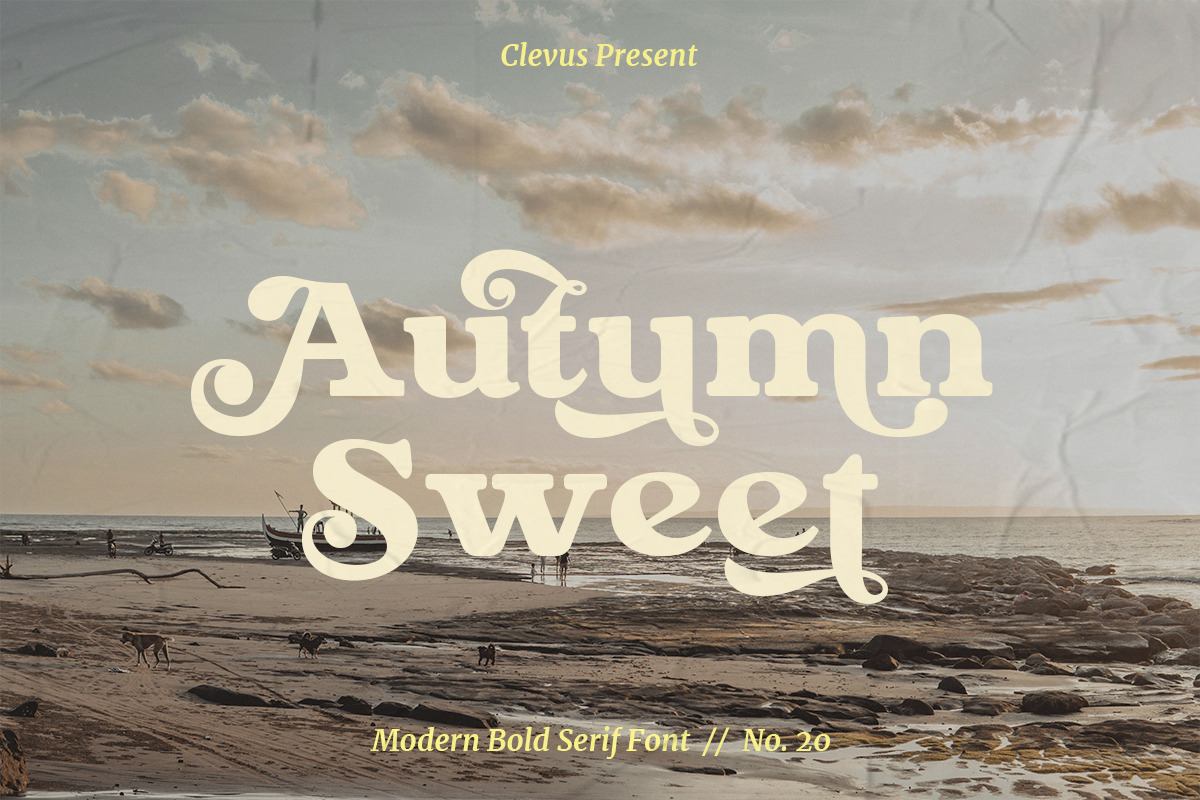
Autumn Sweet | Modern Bold Serif Font Free Download is a warm and stylish typeface that blends classic serif structure with a fresh, contemporary twist. With bold strokes, soft curves, and elegant detailing, this font is perfect for seasonal campaigns, cozy branding, wedding designs, fashion labels, and editorial layouts that need a strong yet graceful presence.
Whether you’re crafting autumn-themed graphics or creating a luxurious brand identity, Autumn Sweet | Modern Bold Serif Font Free Download brings both charm and sophistication to the table. It’s ideal for headlines, logos, invitations, and packaging that want to feel bold, romantic, and refined.
Cozy up your designs with Autumn Sweet | Modern Bold Serif Font Free Download and let your typography glow with seasonal warmth and timeless style. A perfect font choice for modern creatives with a love for elegant boldness.